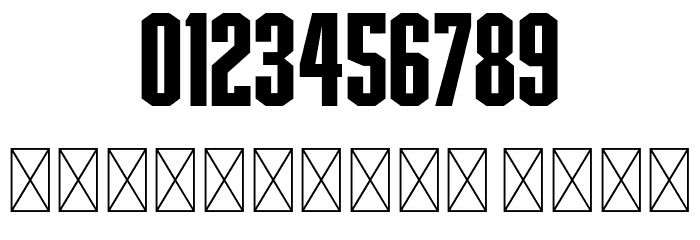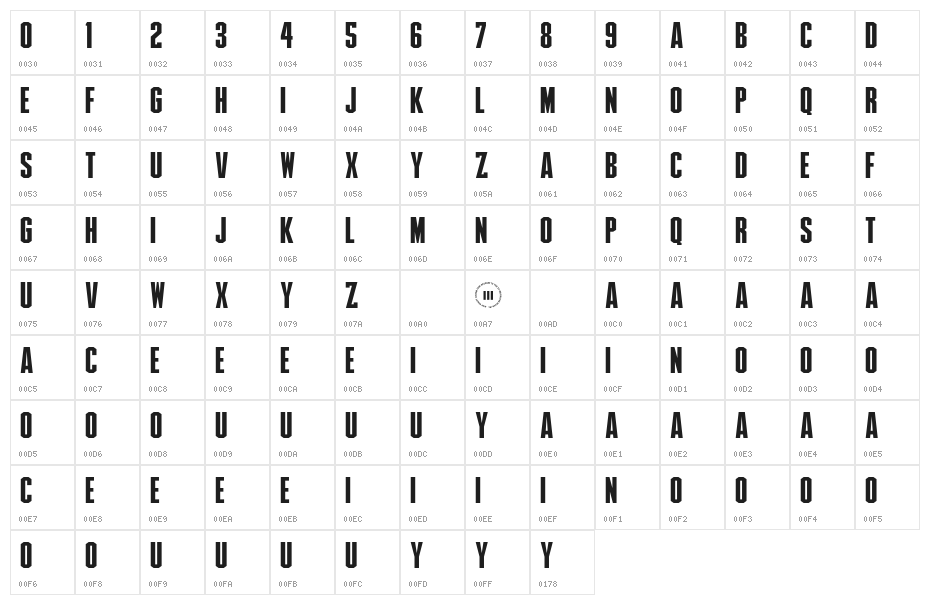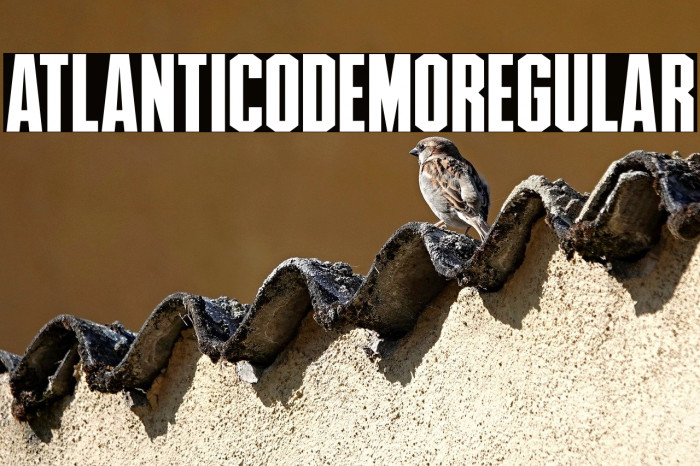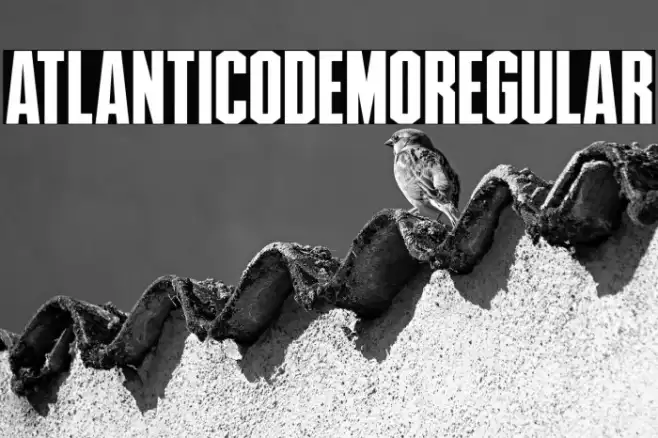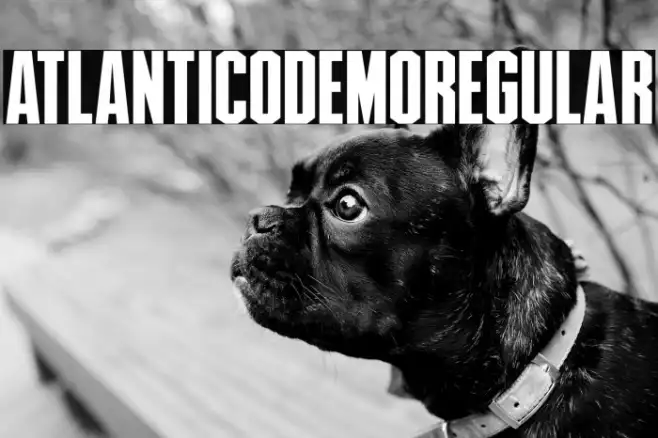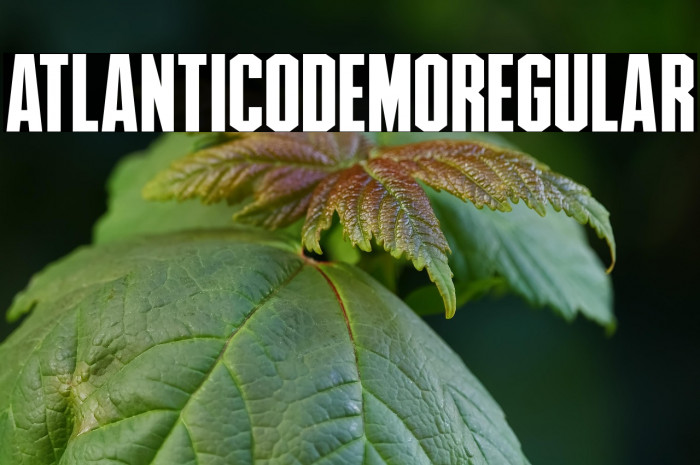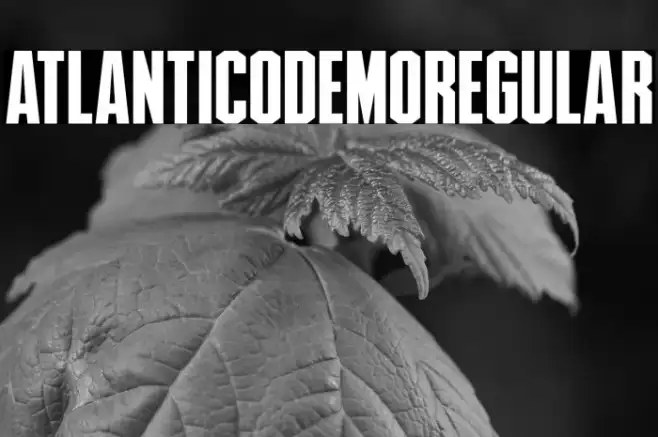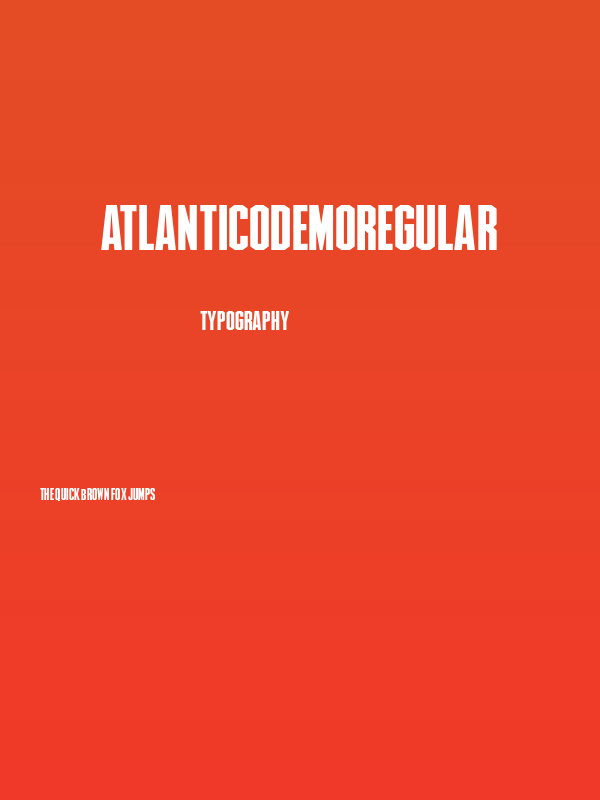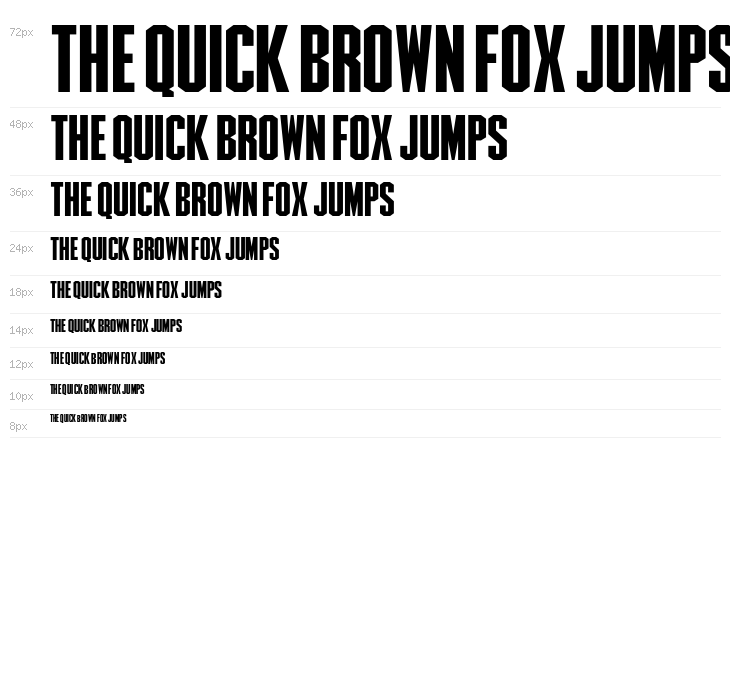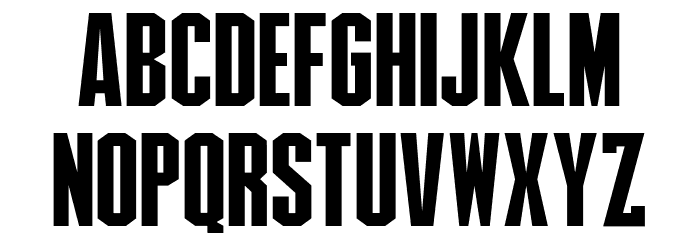
AtlanticoDemoRegular Font
AtlanticoDemoRegular Description
This font features bold, geometric letterforms with a strong presence. The uppercase letters are characterized by their uniform width and angular edges, giving a modern and assertive look. The numerals are equally bold, maintaining the geometric style with consistent stroke thickness. The absence of lowercase letters and special characters suggests a focus on impactful, straightforward design. This typeface is ideal for projects that require a strong visual statement, such as posters, headlines, and branding materials.
| Proposed Projects | Ideal for posters, headlines, branding, and any design requiring a strong visual impact. |